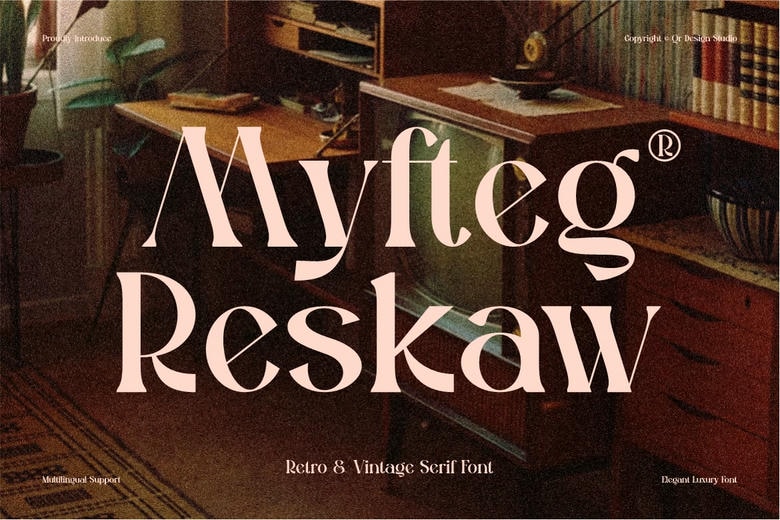
Myftag Reskow Font
Experience the charm of mid-century luxury and vintage style with Myfteg Reskaw. This elegant retro serif font has high-contrast strokes, curved leg swashes, and unique ball terminals, all inspired by the timeless look of the 1970s. Use it to make your headlines stand out or add a classic touch to boutique logos, editorial layouts, beauty packaging, book titles, quote posters, and retro brand designs.
Myftag Reskow Serif Font